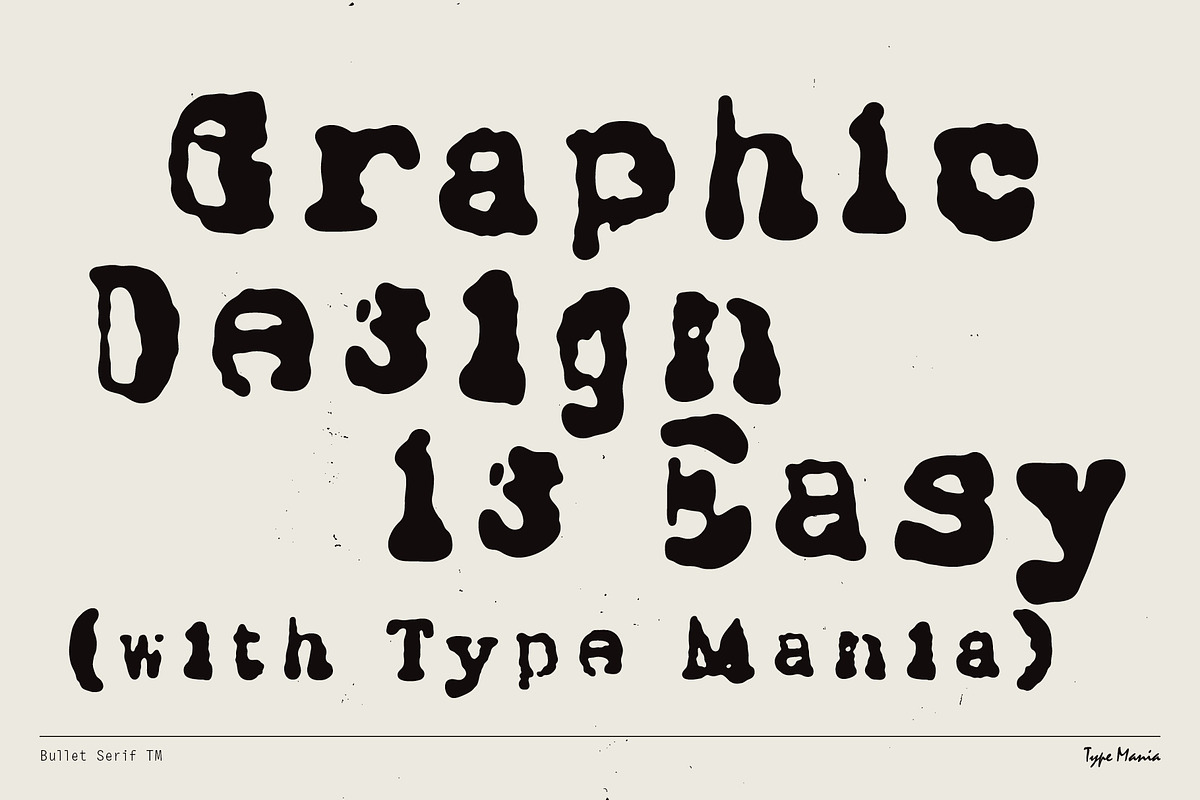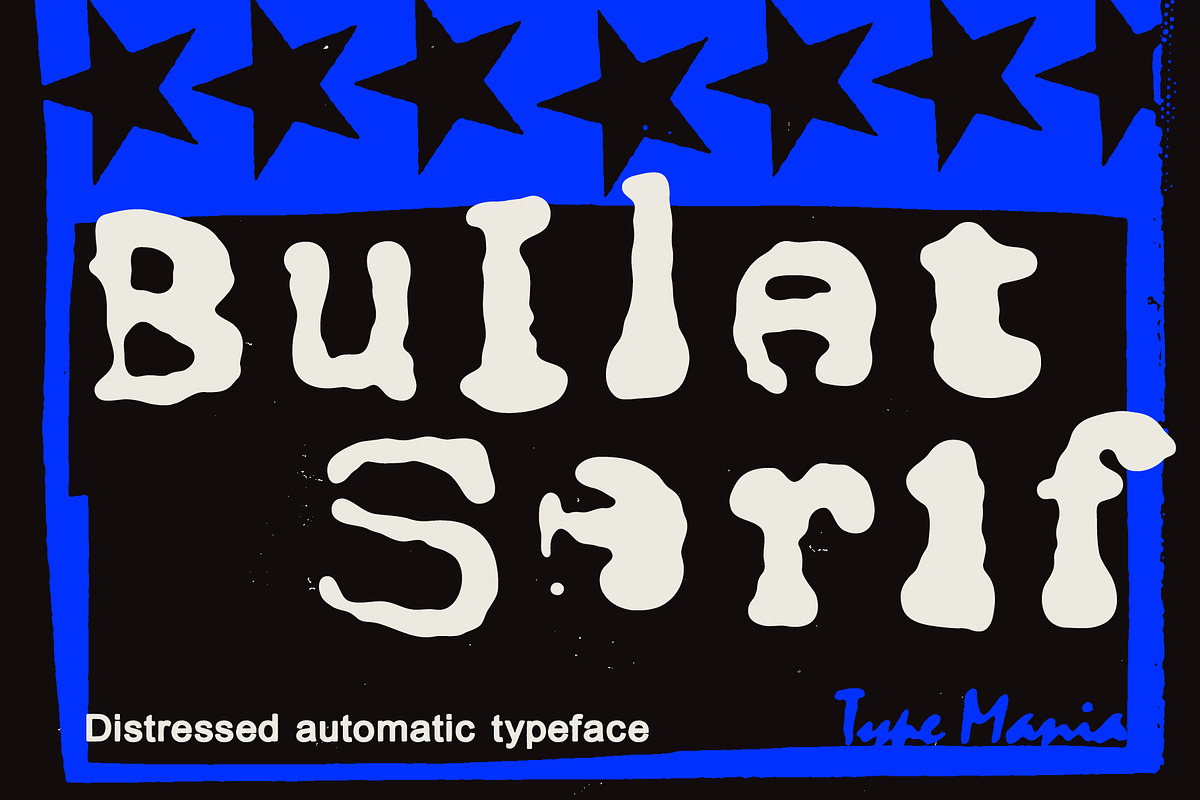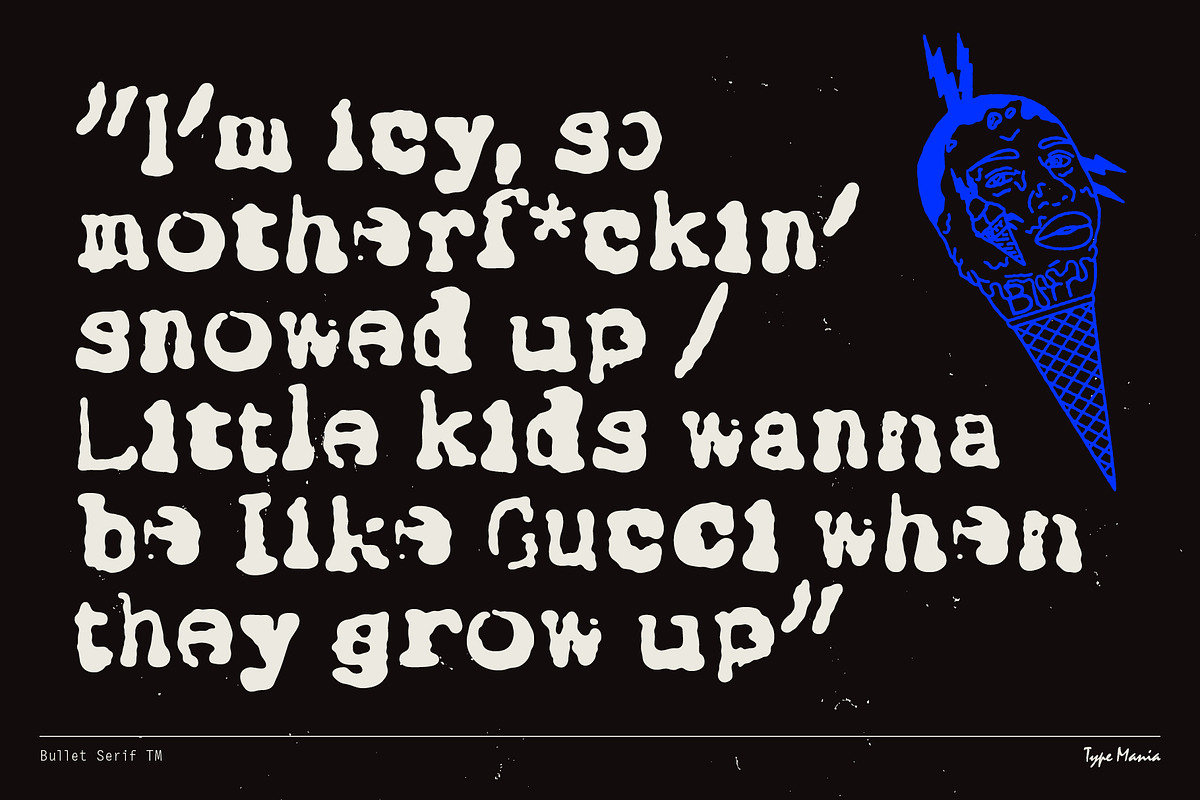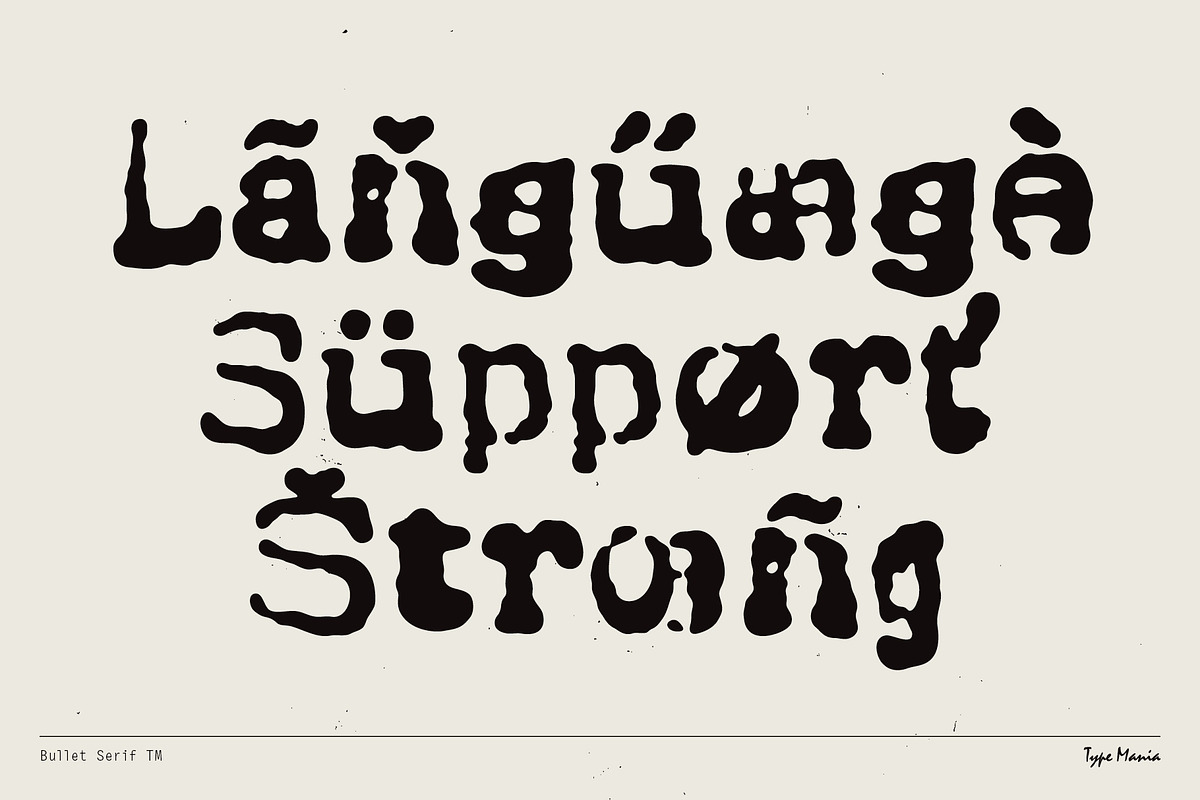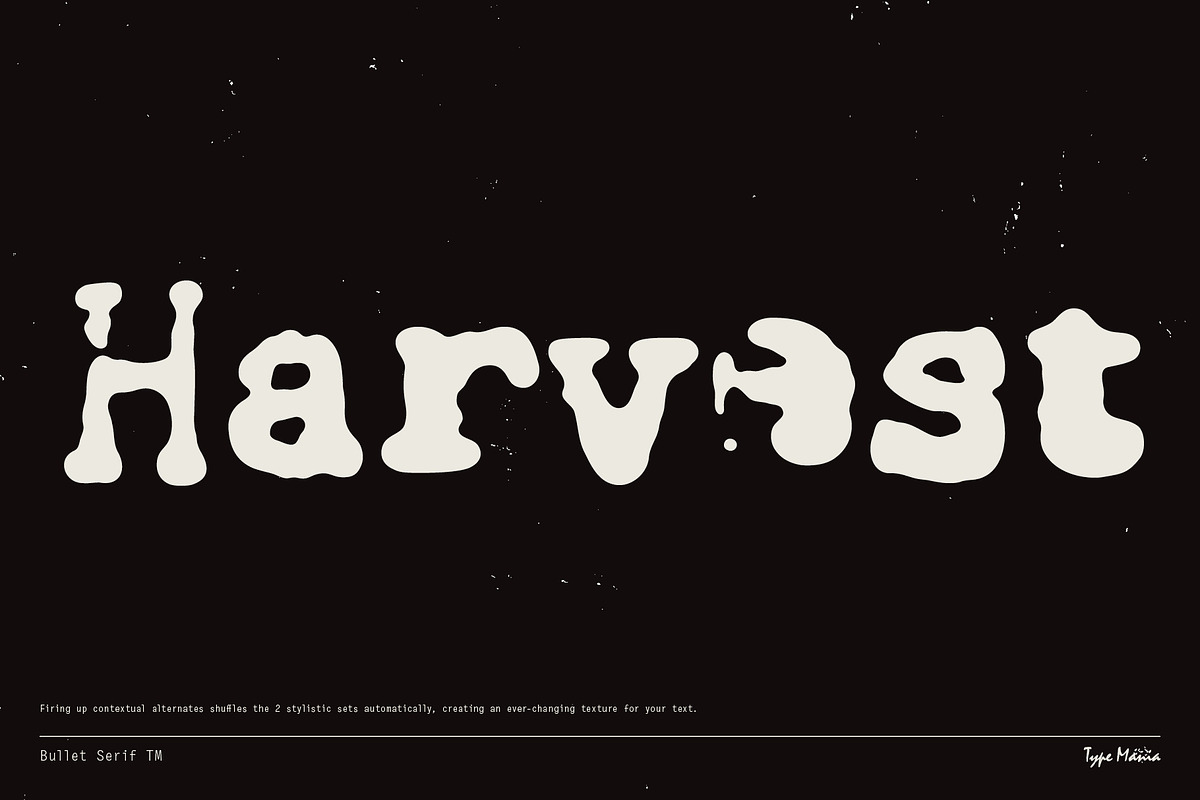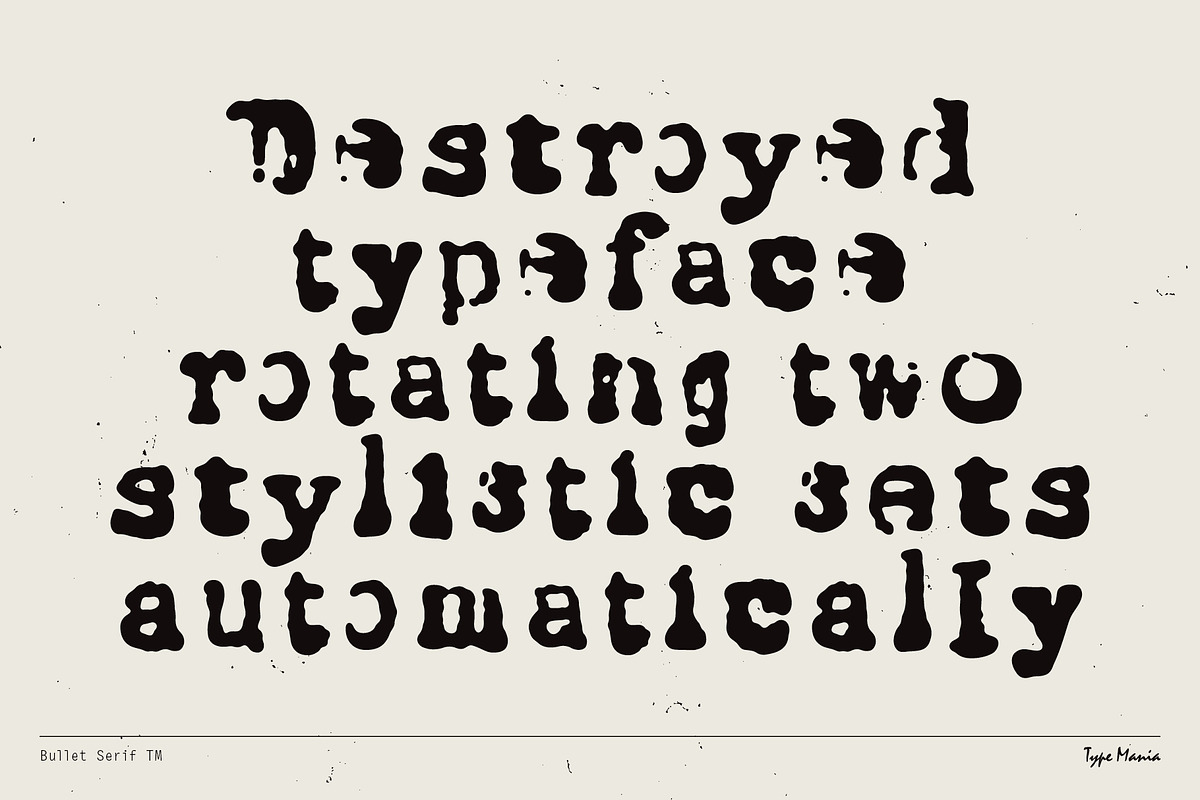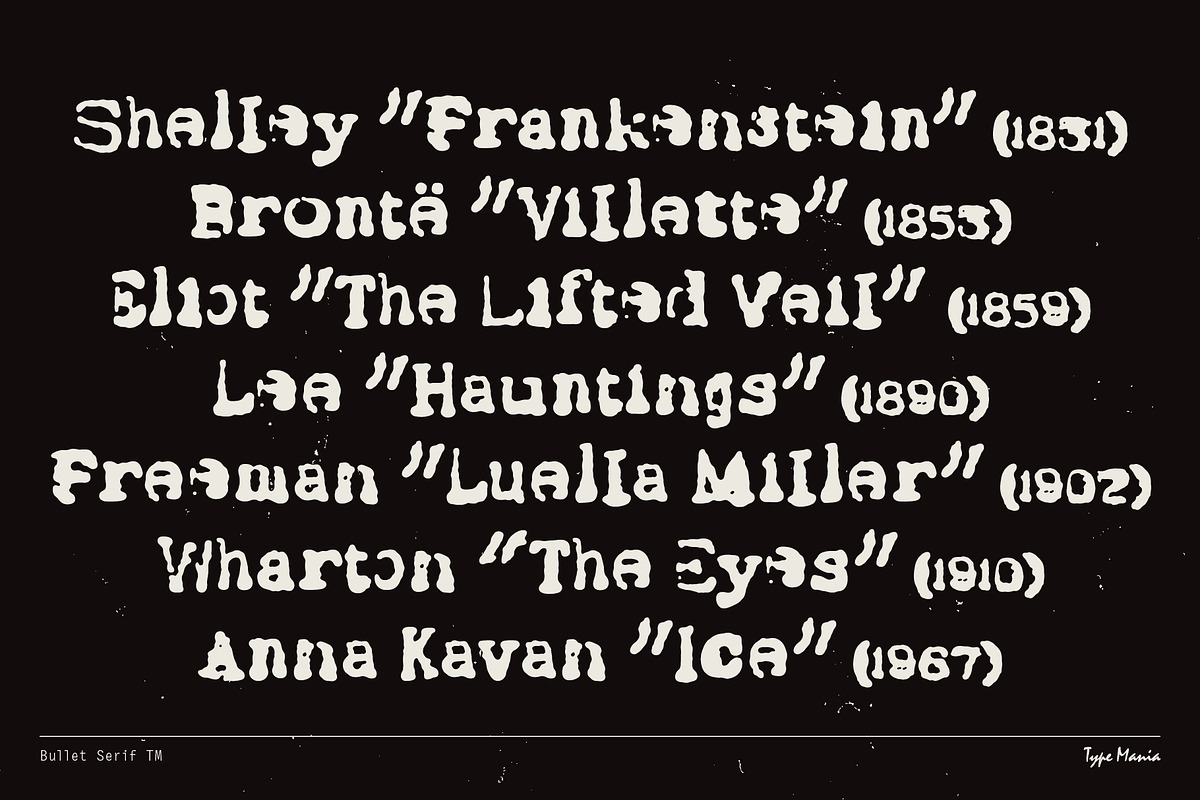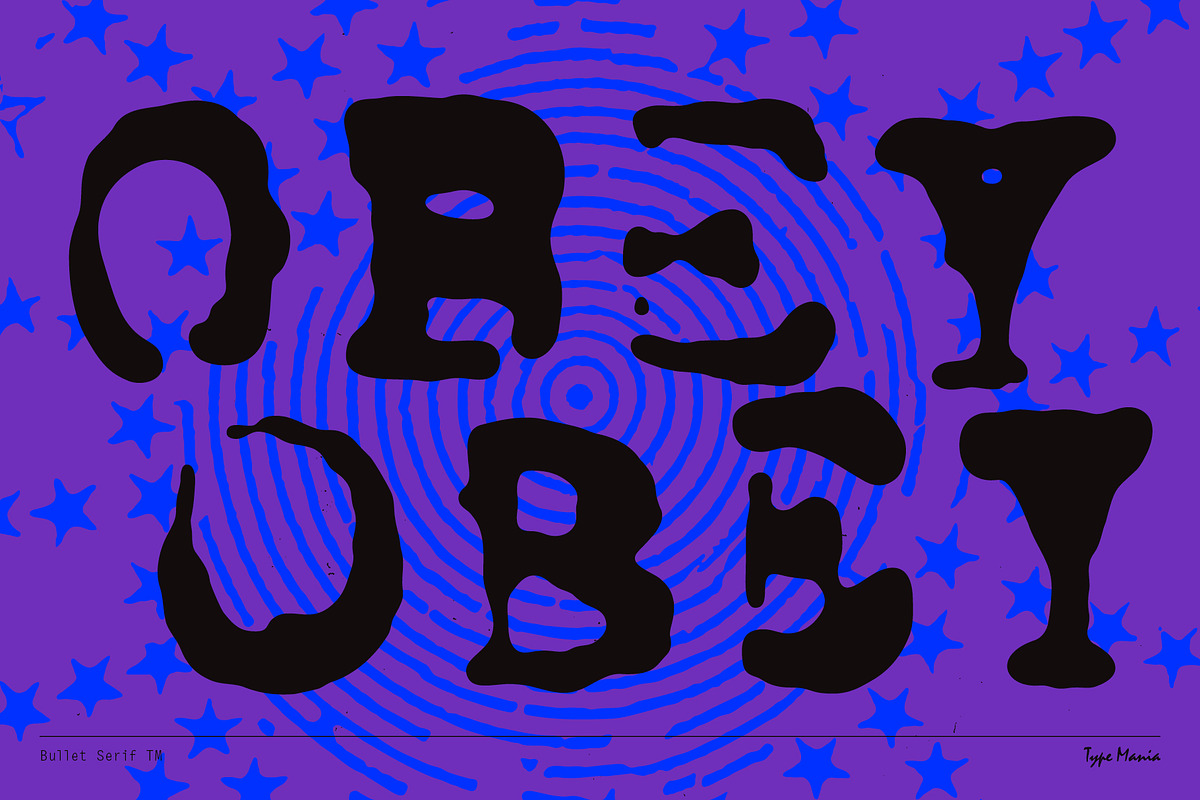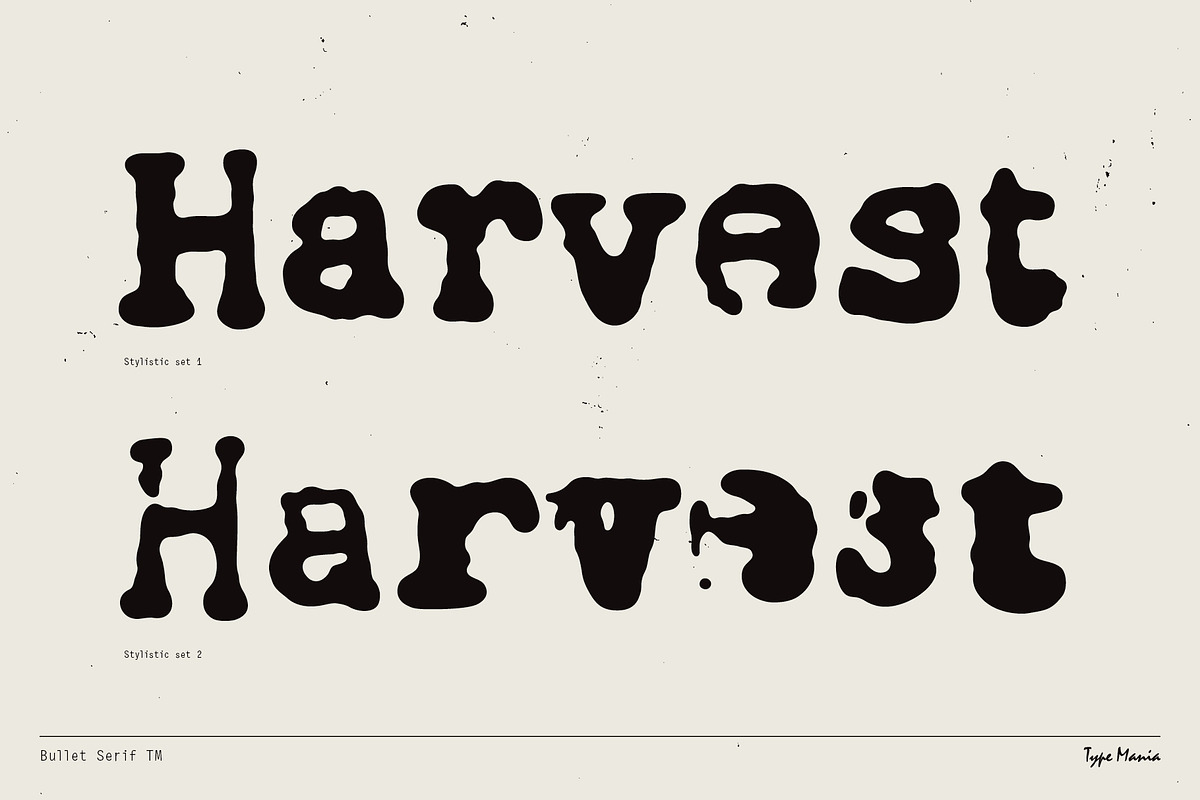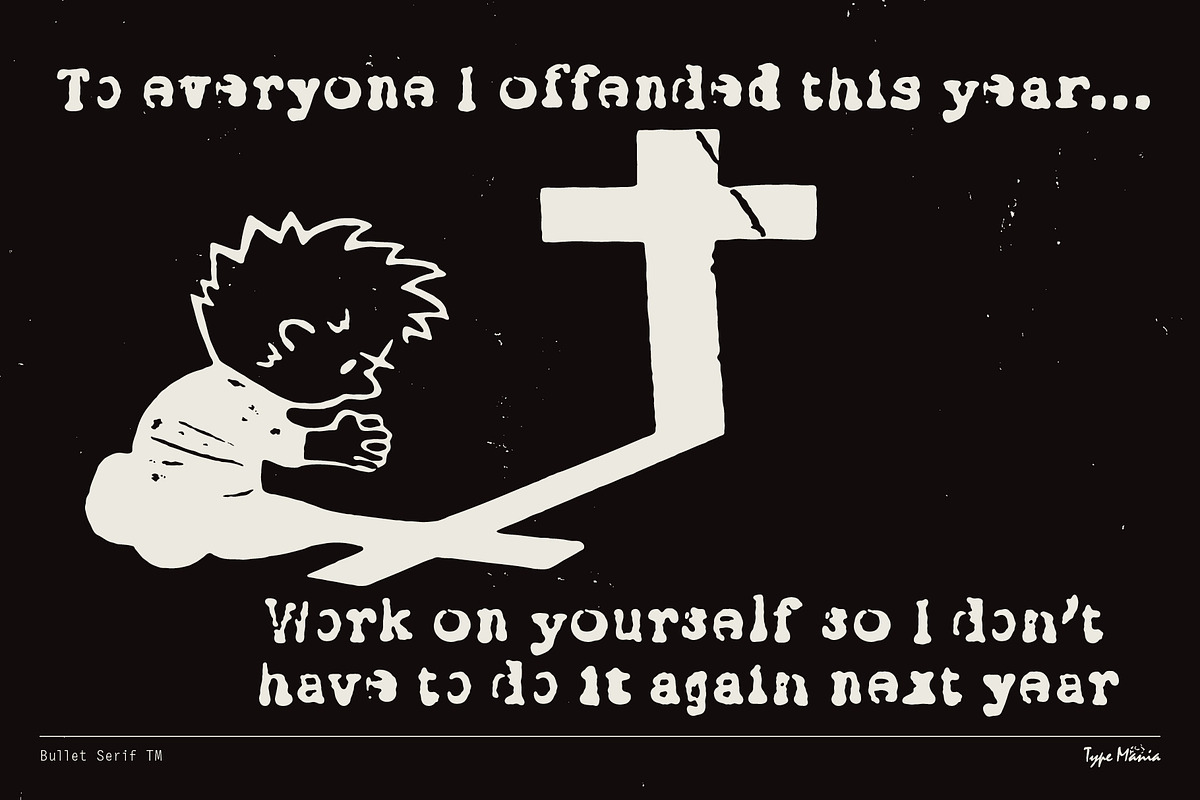
Bullet Serif TM – Grunged Typewriter
Bullet Serif TM. A rough, irregular typeface with two stylistic sets that rotate automatically. Letters alternate as you type, giving the text a loose rhythm w/out sacrificing readability. Sister typeface of Bullet Sans TM.
OpenType features
2 stylistic sets
The font is programmed to automatically shift between the stylistic sets